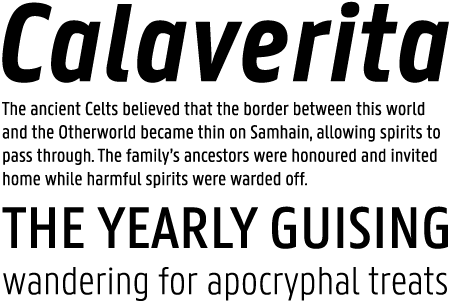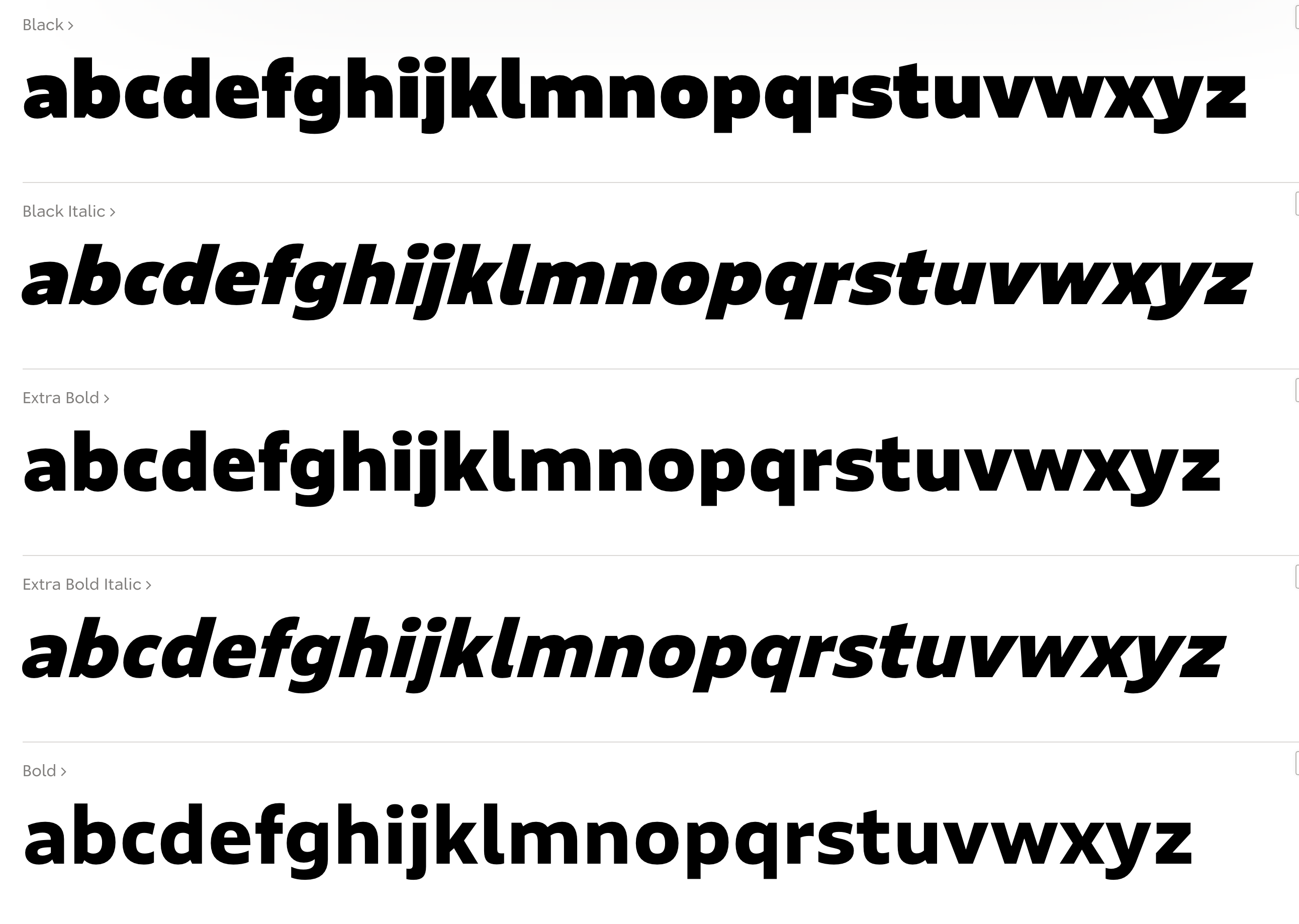
Bold Monday [Pieter van Rosmalen]
Bold Monday is an independent font foundry established by Paul van der Laan and Pieter van Rosmalen and based in Eindhoven, The Netherlands (and before that, The Hague). Pieter van Rosmalen (Eindhoven, The Netherlands) studied advertising and graphic design at Sint Lucas in Boxtel and graduated from the postgraduate Type & Media program at the Royal Academy of Art (KABK) in The Hague in 2002. He runs Bold Monday's Eindhoven office.
In 2018, Bold Monday joined The Type Network.
Pieter van Rosmalen has designed retail as well as custom typefaces for clients worldwide, such as NBC Universal, Audi AG, General Electric and KPN. One of Pieter's designs is used for street signs in South Korea. Pieter's retail typefaces in the Bold Monday catalog include
• Aniek (2009: a children's script).
• Bilo (2018: a grotesque).
• Capibara (2007).
• Dico (2004-2020). A varied suite of 45 typefaces by ncompassing eight proportional and monospaced sub-families (Sans, sas Soft, Mono, Code One, Code Two, Typefwriter, Slab, Mono Slab). It circles around a sans-serif van Rosmalen started in 2004 for design studio Teldesign, comprehensively updated and expanded upon in 2020. The monospaced script styles are loosely based on Corinthian Script for the IBM Selectric.
• Nitti (2008: monospaced), Nitti Grotesk (2012-2014), Nitti Mostro (2015, +Stencil, +Disco, a splendid multiline headline typeface), Nitti Typewriter (2009).
• Panno (2008, a sans), Panno Sign, Panno Text (2008-2010). By Van Rosmalen and van der Laan).
• Pinup (fat rounded sans, done in 2008). In 2013, he published Pinup Dotted (a textured typeface).
• Stanley (headline face, done in 2008; includes a stencil).
• Puffin, Puffin Display (rounded informal sans families) and Puffin Arcade (a large bitmap font family).
Bold Monday also has typefaces by other designers. In 2012, Bold Monday published the trompe l'oeuil typeface Macula (Jacques Le Bailly) which is based on designs by Oscar Reutersvärd. Oskar (2002-2013). They write: Oskar, designed by Paul van der Laan, is a typeface inspired by Dutch architectural and advertising lettering from the early 20th century. Particularly the style of lettering that was painted on walls and shopfronts, or executed in metal on buildings. This kind of typography did not exist as metal printing types, but was instead painted manually by sign painters, or drawn by architects. Initially the typeface was designed in 2002 for the lettering of a monumental school in The Hague, designed by architect Jan Duiker in 1929. In 2012, they published the trompe l'oeuil typeface Macula (Jacques Le Bailly) which is based on designs by Oscar Reutersvärd.
Further typefaces include Feisar (techno), Flex (sans), Naomi (1999) and Pixel Package.
GE Inspira Sans and Serif (Mike Abbink, Paul van der Laan and Pieter van Rosmalen, Bold Monday) won an award in the TDC 2015 Type Design competition.
In 2018, Pieter published the experimental pixel-inspired typeface family Alterego.
Typefaces from 2021: Stanley: Bold and broad-shouldered, Stanley is a poster typeface collection in three styles rooted in the first sans-serif designs of the 19th century---the grotesques. Stanley is available in Normal, Stencil, and Stencil Rough.
Pieter designed custom typefaces for worldwide clients amongst others Agis, Audi, Teldesign, KPN, The government of South Korea (road signing), The Ministry of Transport, Public Works and Water Management (OV Chipcard), USA Today (Futura Today, 2012, with Paul van der Laan), and NBC Universal. For Holland Festival in 2014, Paul van der Laan designed the stencil typeface HF Stencil (in collaboration with design studio Thonik, Amsterdam, and Diana Ovezea), a design inspired by Glaser Stencil.